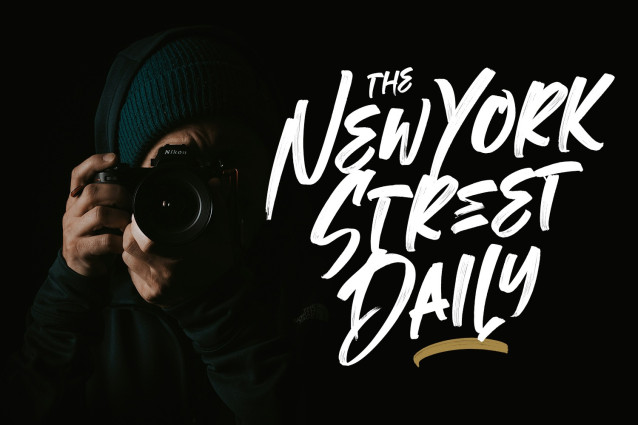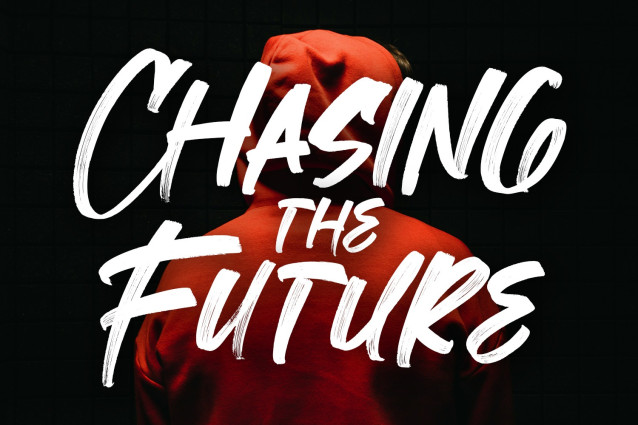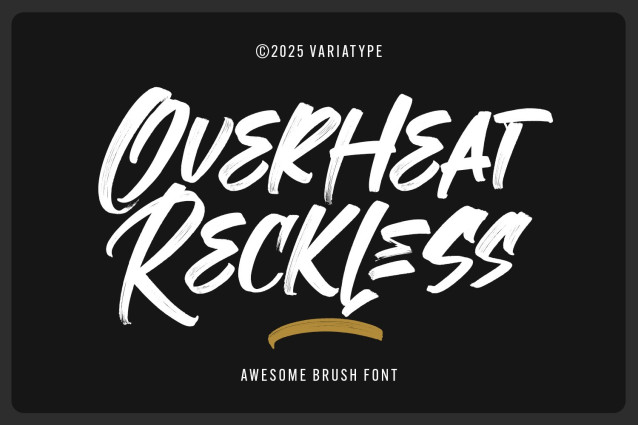
Overheat Reckless Font
Overheat Reckless Font is a bold brush font with dynamic strokes and authentic hand-painted texture. Perfectly match for streetwear, sports branding, posters, and modern urban designs, this font brings strong energy and a vibrant, expressive style. Make your titles stand out with a powerful brush script that adds impact and attitude to any creative project.